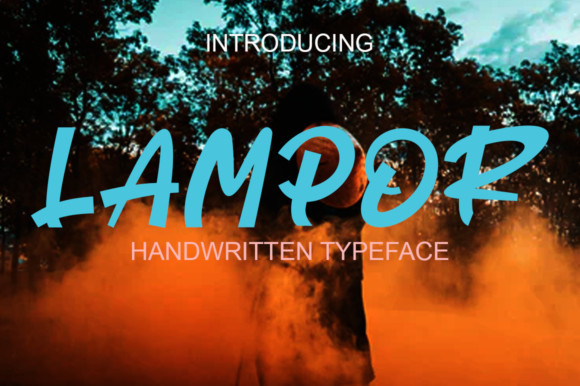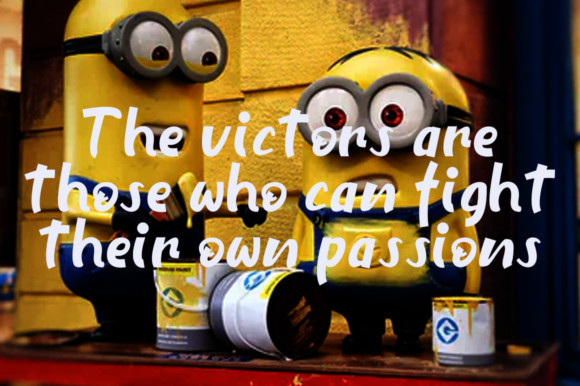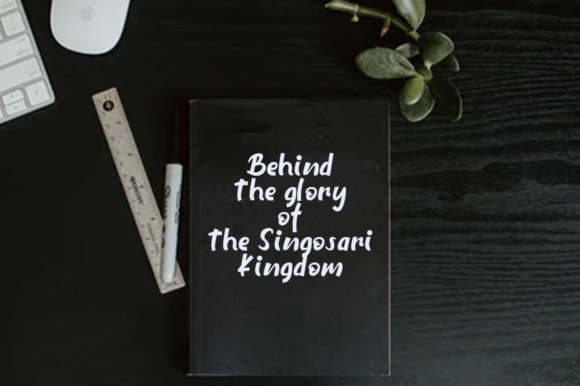
Lampor Font
Lampor is a cool, bold and street styled display font. This original look will appeal to a wide range of crafty ideas, from letterheads and titles, to stationery.